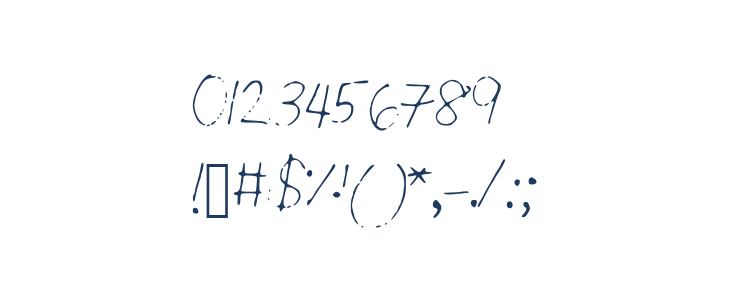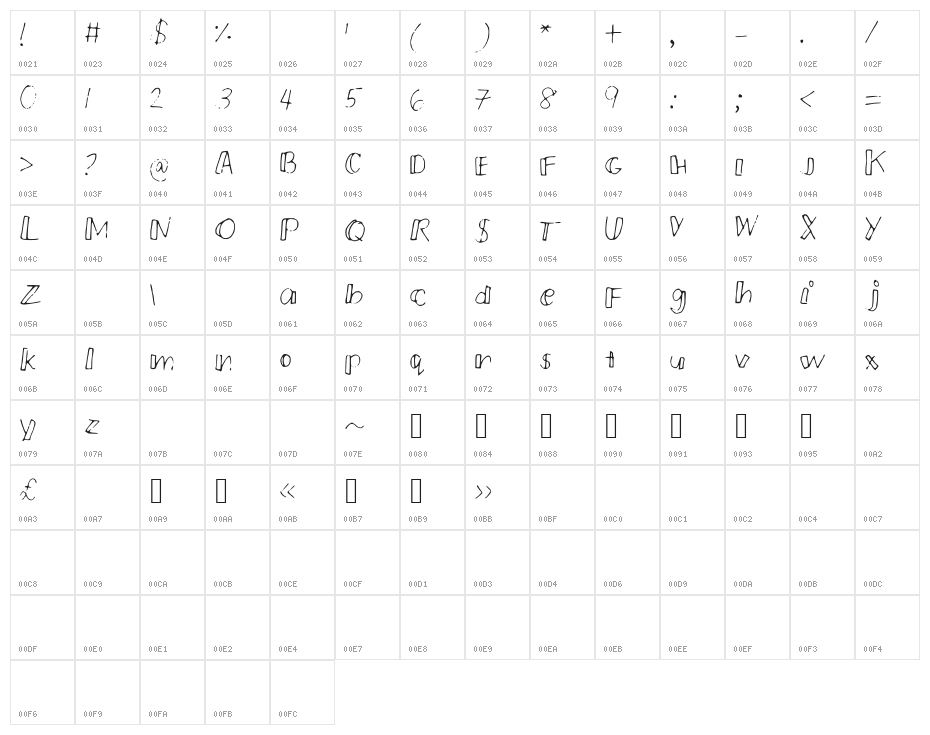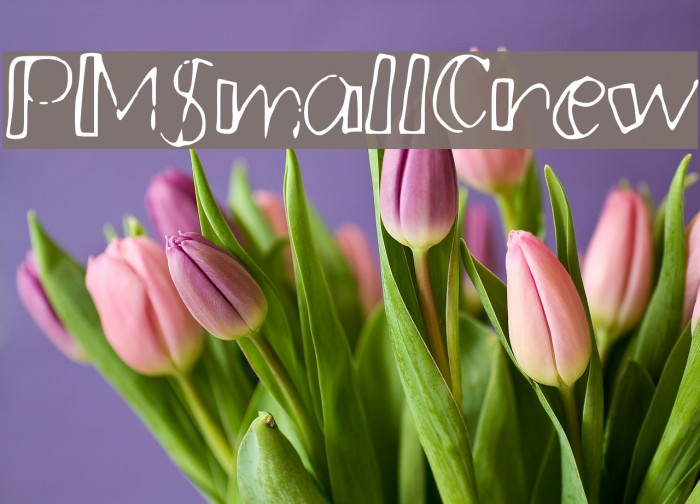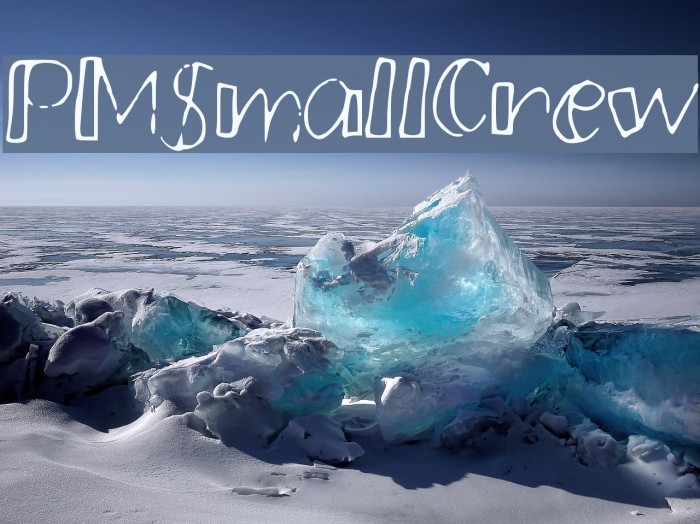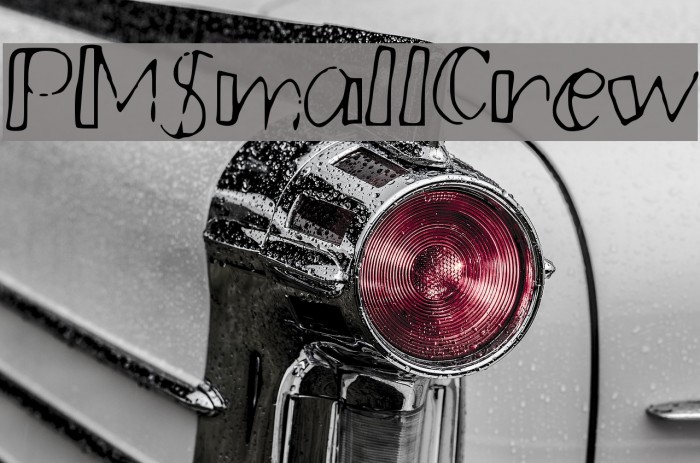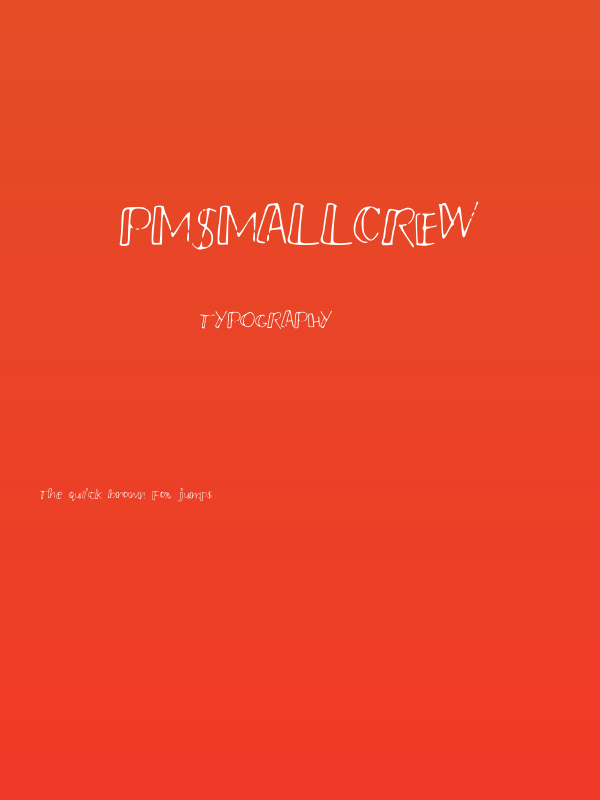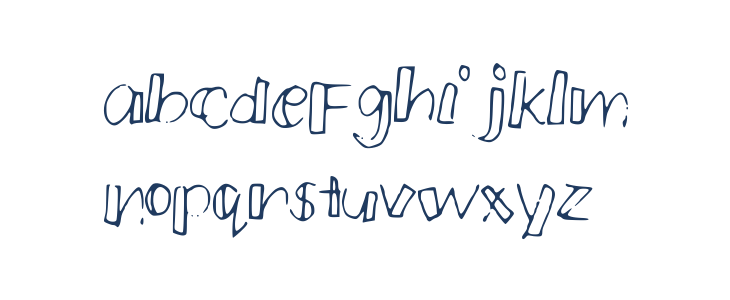
PMSmallCrew Font
PMSmallCrew Description
This font exhibits a unique, hand-drawn style with a playful and artistic flair. The uppercase letters are bold and dynamic, featuring irregular strokes and a slightly whimsical appearance. The lowercase letters maintain this playful aesthetic, with some characters having distinctive loops and curves. Numbers and special characters follow the same artistic theme, adding to the font's overall charm. The font's irregularities and varied line thicknesses give it a lively and informal feel, making it ideal for creative projects that require a personal touch.
| Use Case | Headlines, Logos, Creative projects |
| Proposed Projects | Ideal for children's book illustrations, creative posters, greeting cards, and artistic branding projects. |